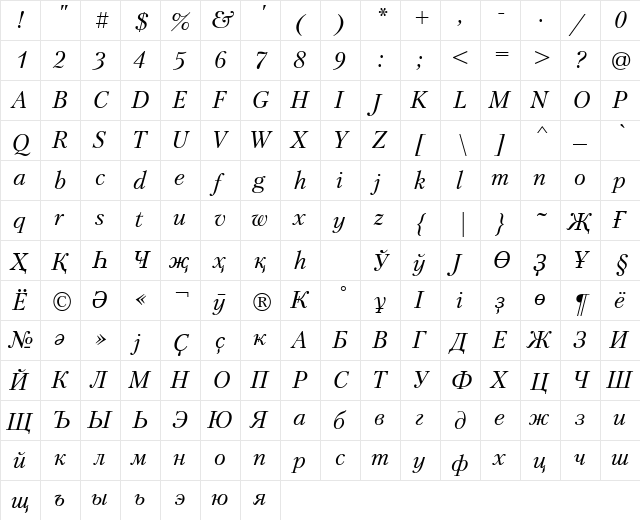
PetersburgITT Italic
| Foundry | ParaGraph |
Design Context for PetersburgITT Typeface
PetersburgITT is a composed and adaptable typeface that performs quietly and consistently across a wide range of design contexts. Its italic angle brings a sense of urgency and motion to the letterforms.
Pro Tip: Try PetersburgITT for annotation and caption copy alongside an upright companion — the contrast in angle creates a dynamic but ordered typographic system.